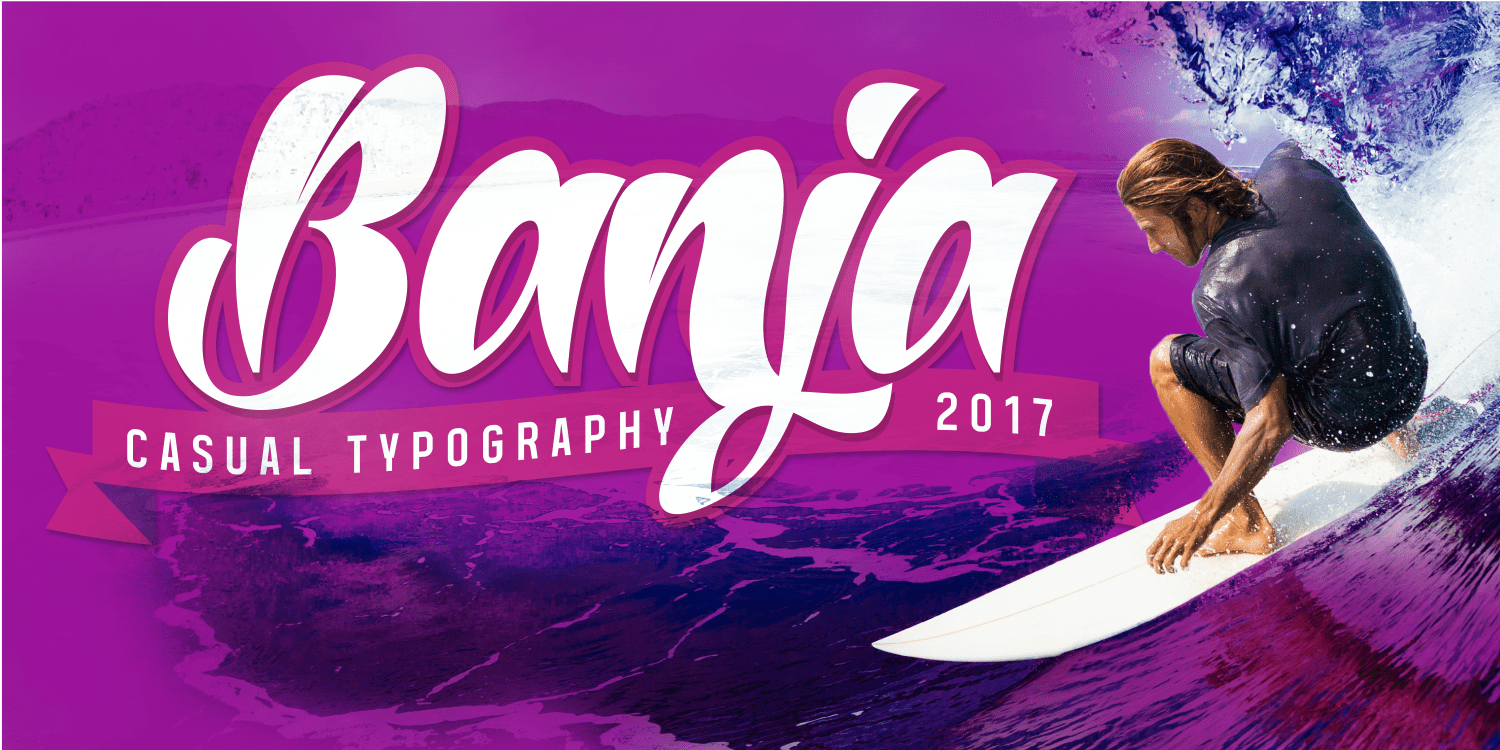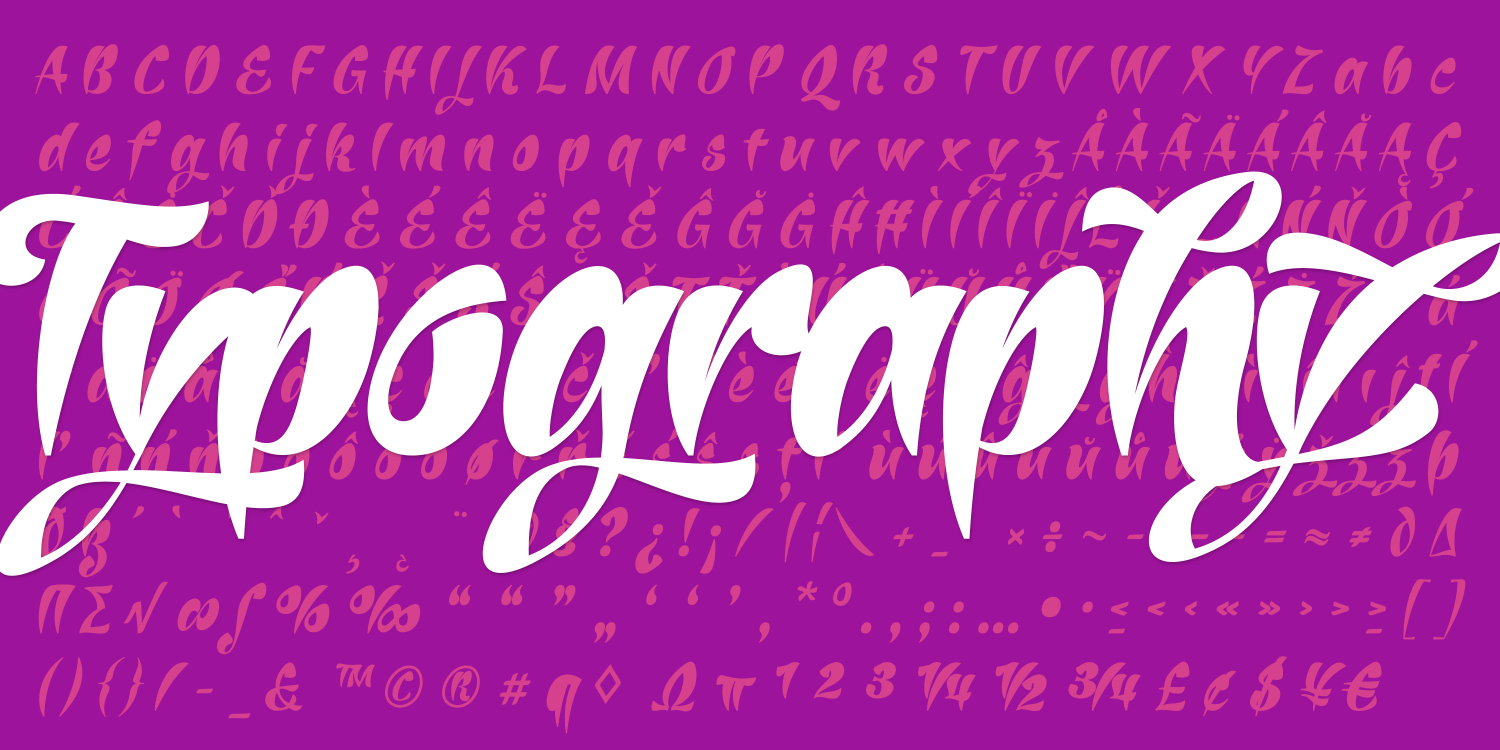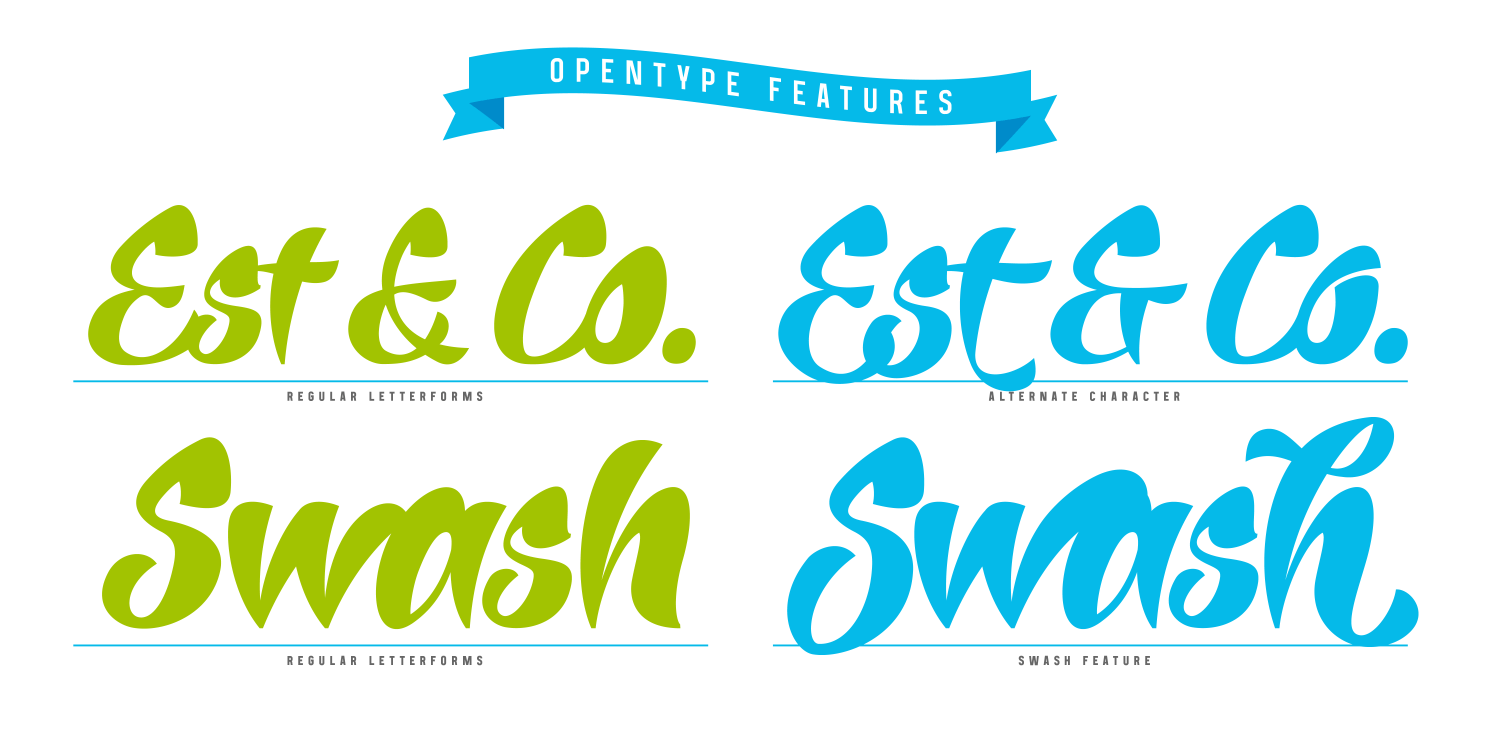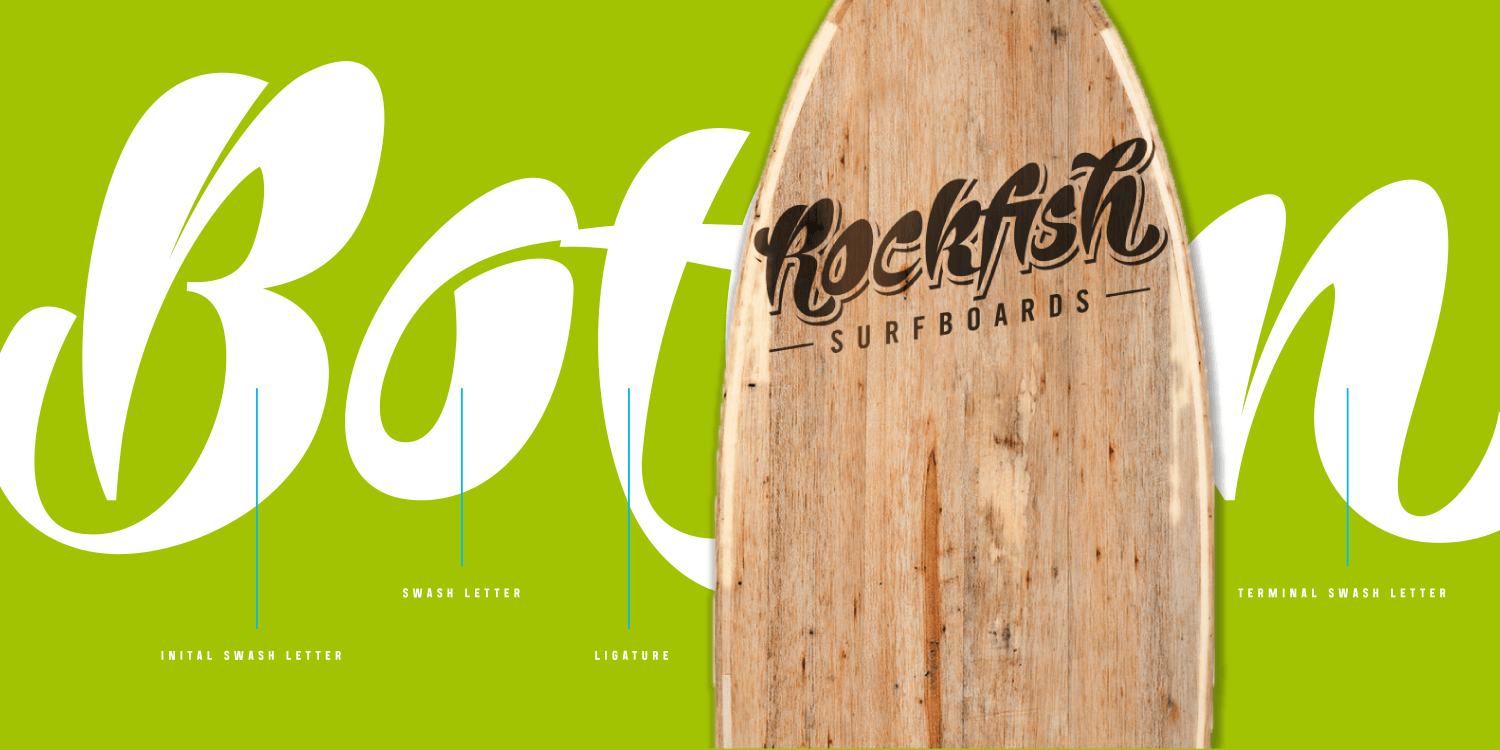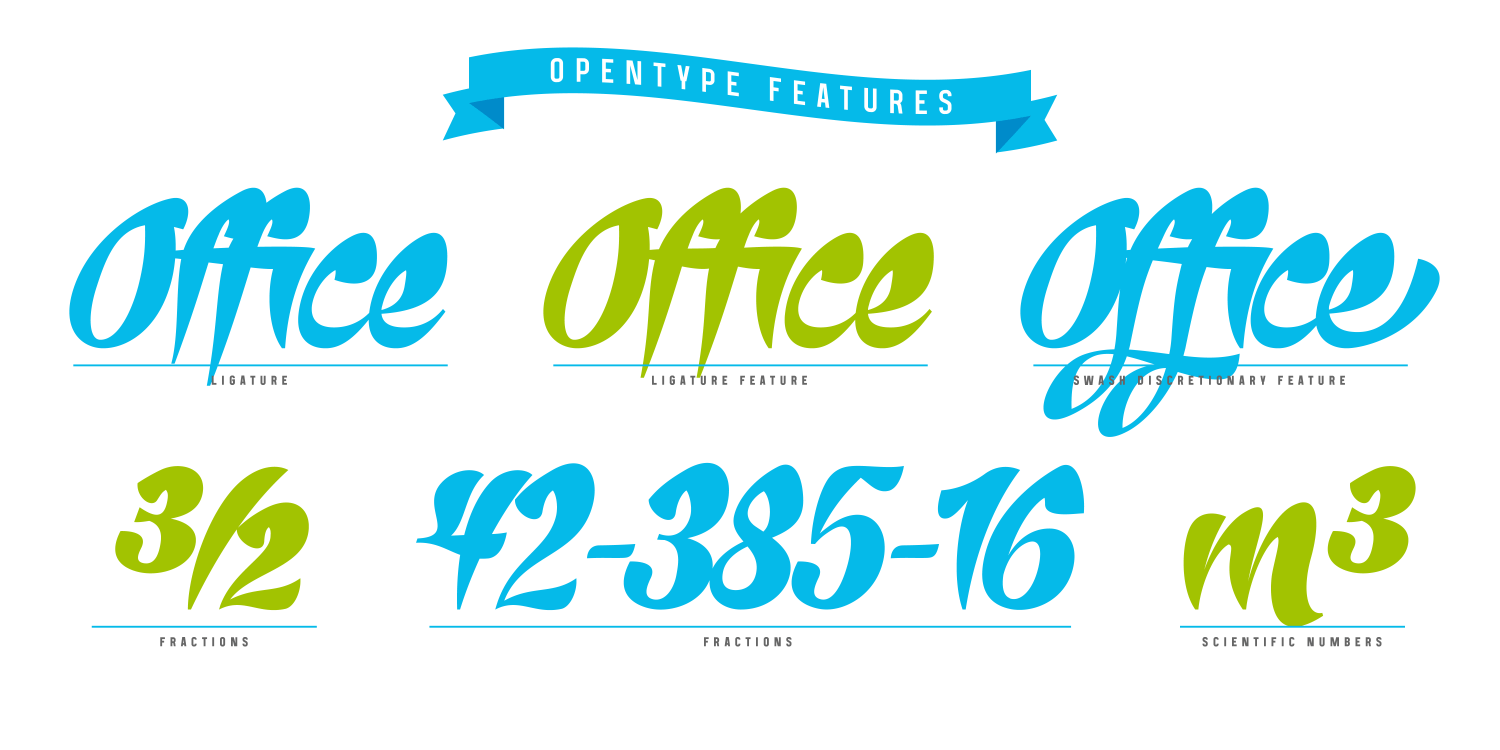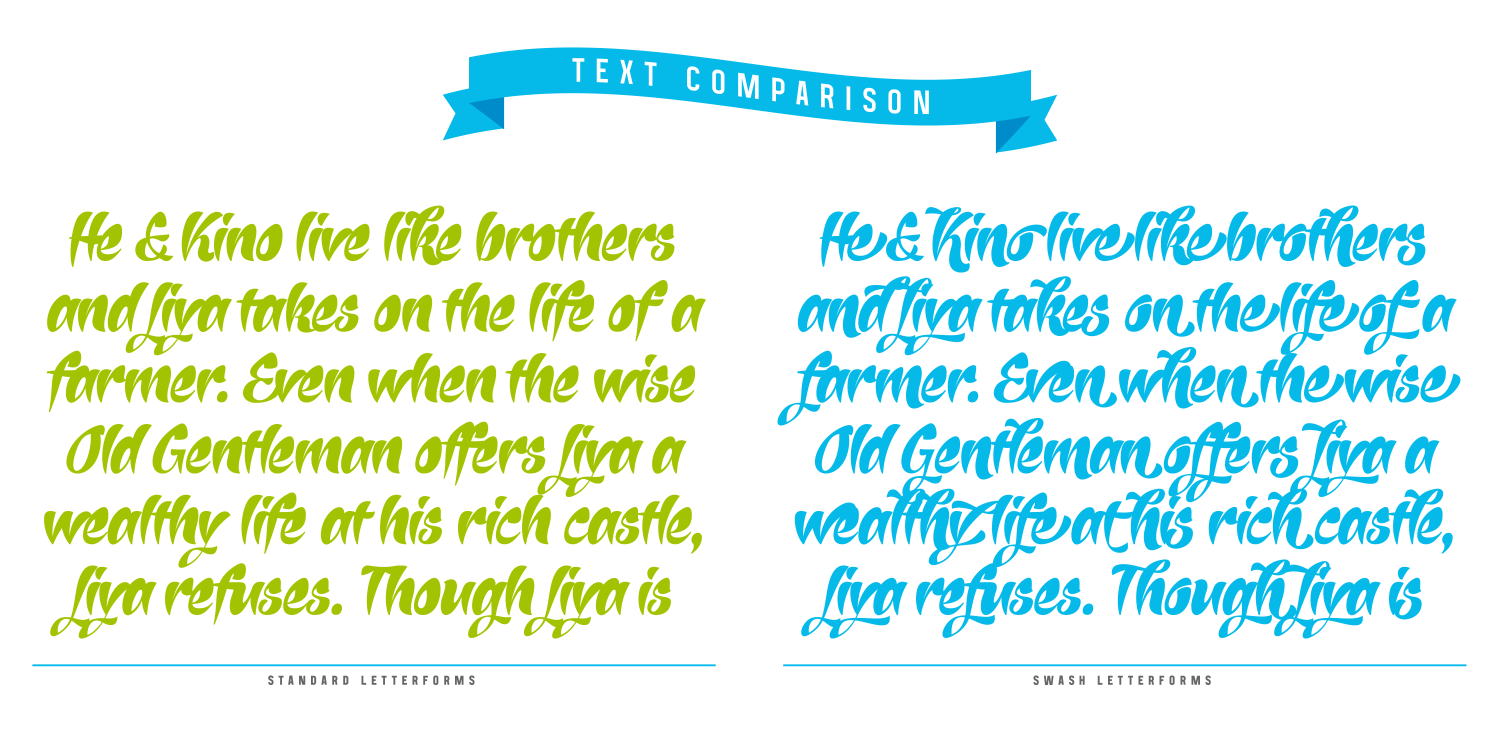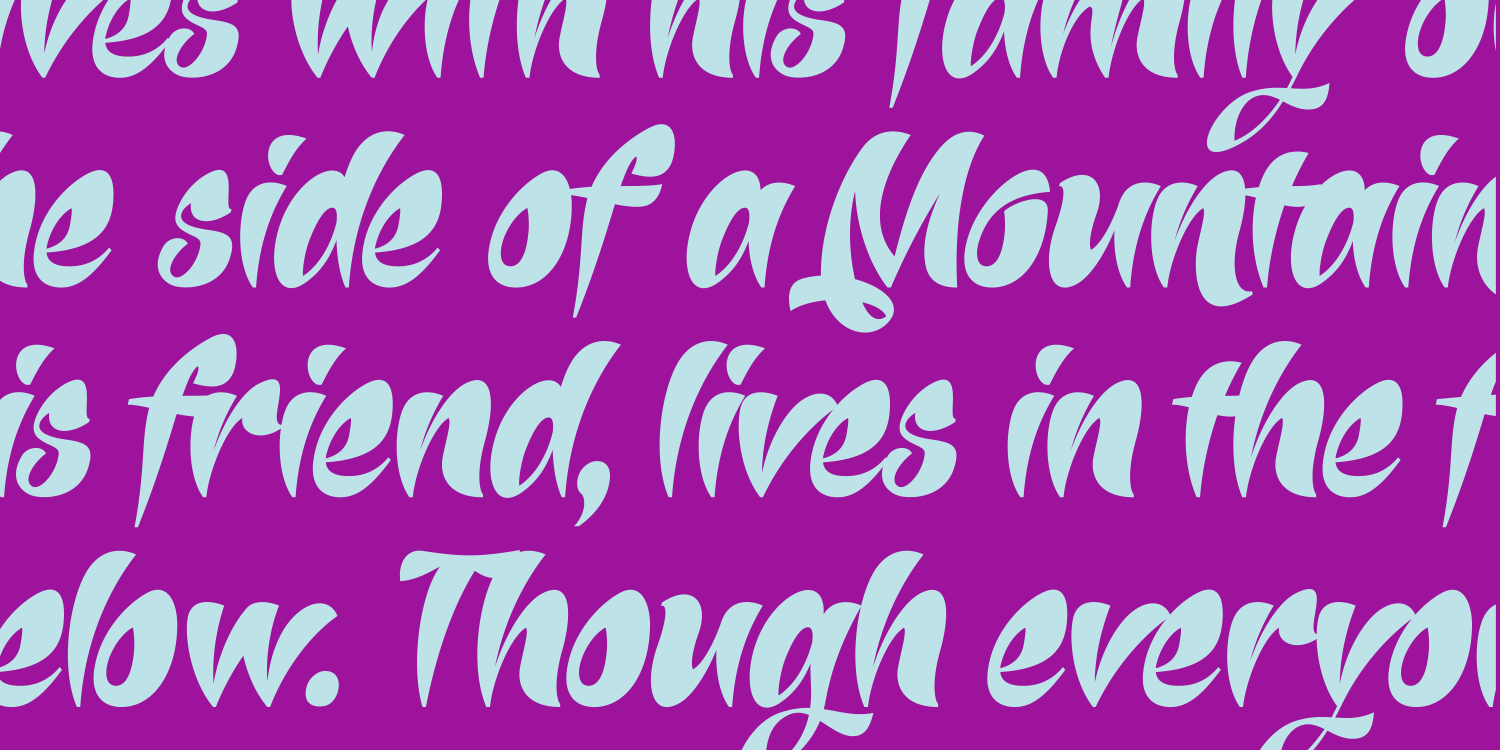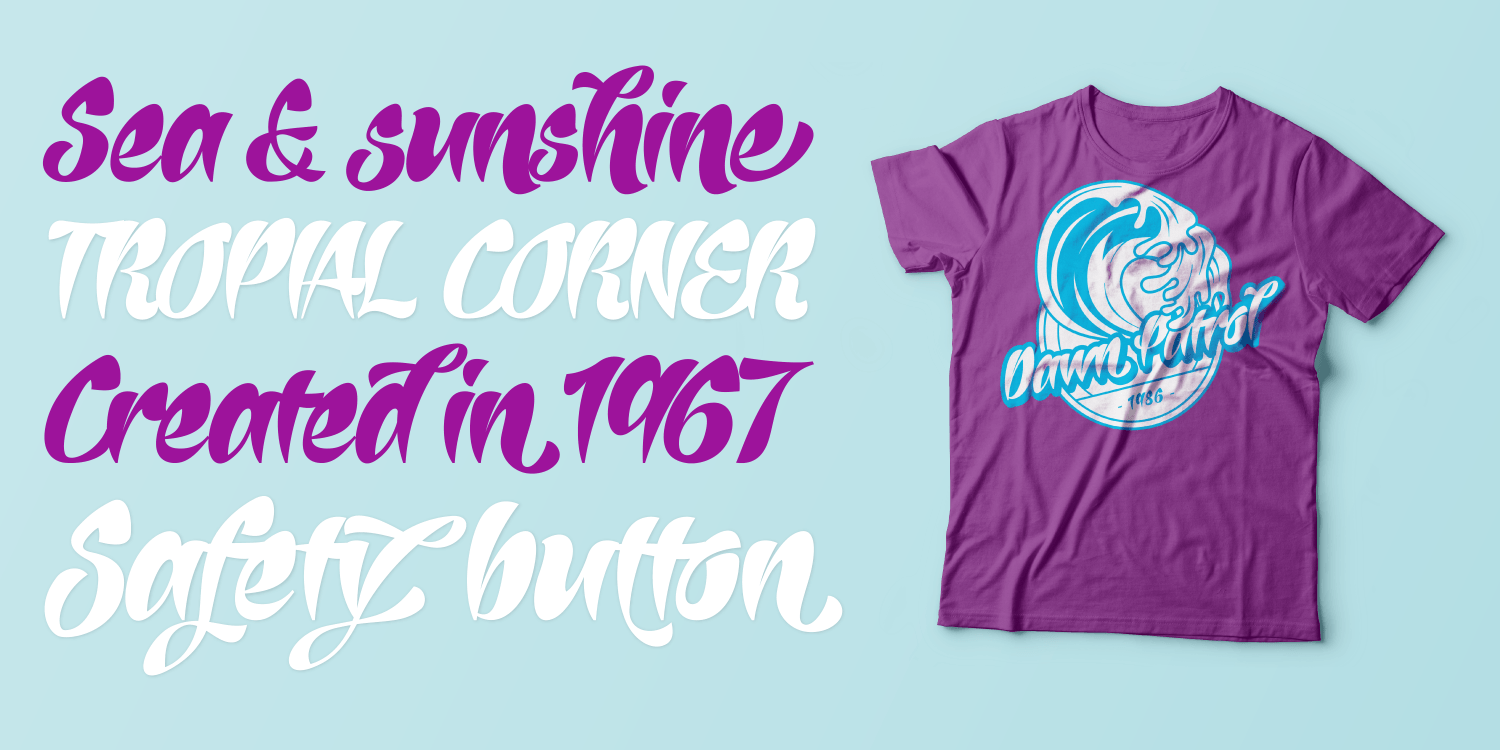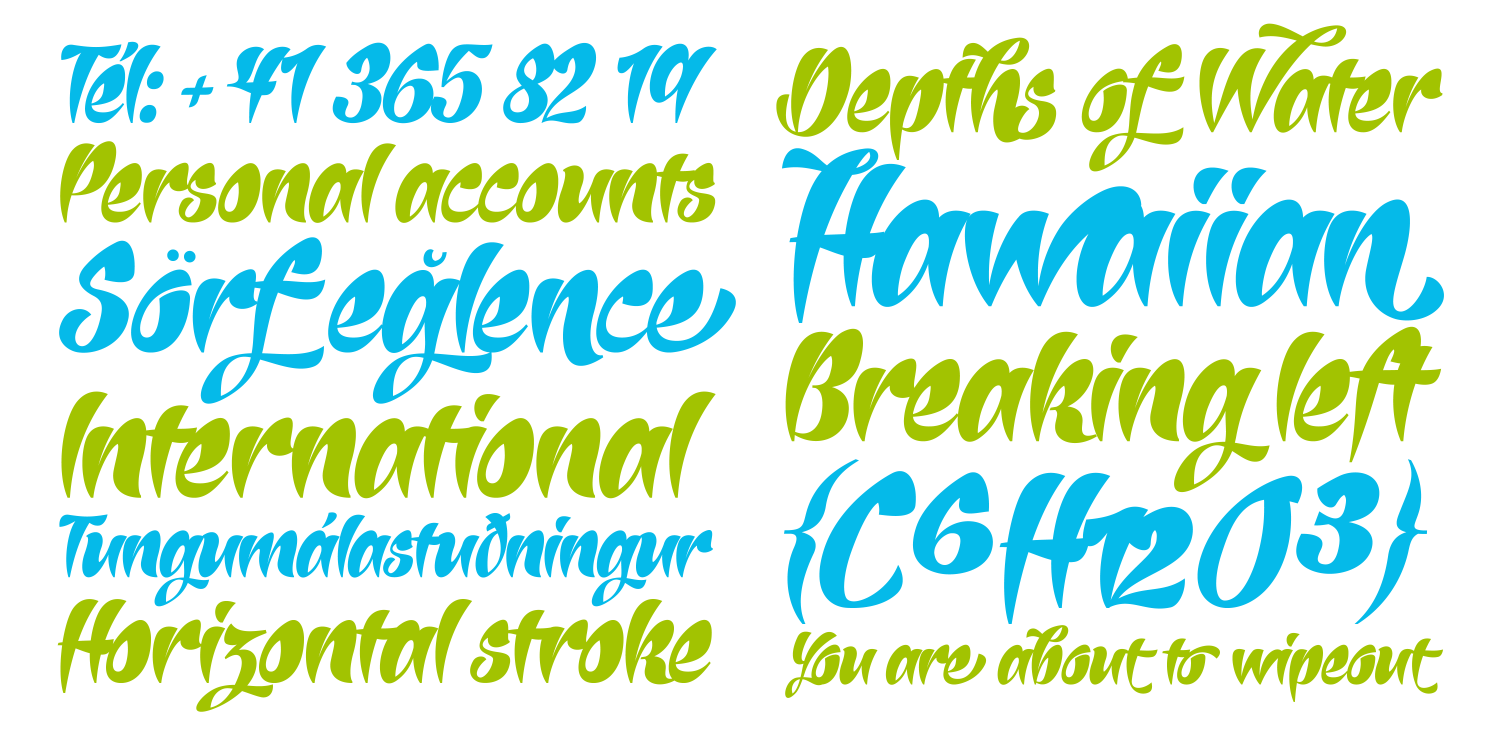
Banja
Font Family by Typogama
Banja is a single weight, non connecting script typeface filled with vitality. Designed for branding and editorial design, this dynamic style is filled with a selection of swash letters and ligatures to add even more variety and choice for layouts. Banja includes a full extended latin character set that covers most european languages including Turkish, Icelandic or Polish.